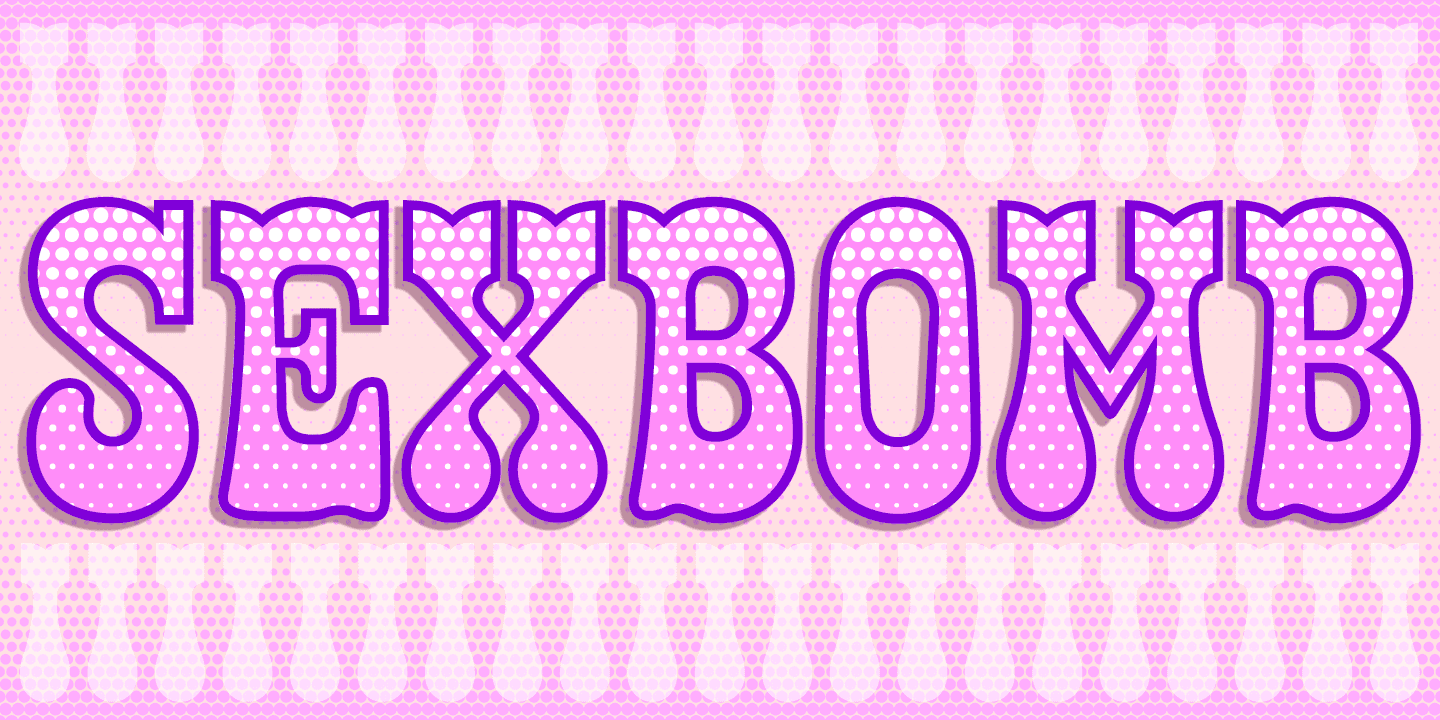
Sexbomb Font is perfect for bold fashion magazine headlines, explosive advertising campaigns, dynamic entertainment posters, powerful music album covers, striking social media graphics, impactful beauty product branding, dramatic nightclub promotions, energetic party invitations, bold lifestyle magazines, attention-grabbing promotional materials, vibrant festival banners, and high-energy brand communications.
What makes Sexbomb Font so exciting is its explosive visual impact and dynamic energy that instantly commands attention and creates unforgettable brand presence. This powerful typeface features bold, dramatic letterforms with striking geometric shapes and high-impact design elements that communicate confidence, energy, and irresistible appeal, making it perfect for brands and projects that need to make bold statements, capture immediate attention, and convey dynamic personality with maximum visual impact.
The Sexbomb Font family typically includes multiple weight variations with dramatic styling options, explosive alternates, and high-impact ligatures that enhance the bold aesthetic while maintaining excellent readability for attention-grabbing design applications.
Whether you're creating high-energy advertising campaigns or developing bold entertainment branding, Sexbomb Font Free Download delivers the ultimate typography solution for projects requiring maximum visual impact and explosive personality. This versatile font masterfully combines dramatic boldness with professional functionality, making it an essential tool for designers working on projects that need to stand out, make powerful statements, and create unforgettable visual experiences that demand attention and leave lasting impressions.